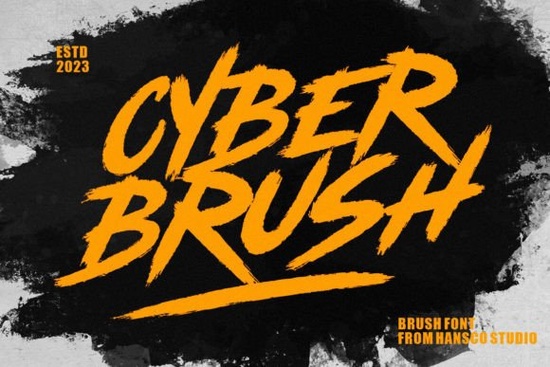
Looking for a bold, gritty typeface that feels truly hand-crafted? Cyber Brush Font is a handwritten brush typeface with a rough, dry texture that adds real character to any project. It works well for logos, posters, t-shirt designs, and printable templates. If you're a designer, crafter, or print-on-demand seller who needs a typeface with attitude and authenticity, this one deserves a closer look.
What Does Cyber Brush Font Actually Look Like?
Cyber Brush has a bold, rough style built on a detailed dry brush texture. Each letter looks like it was painted by hand with a dry brush stroke uneven edges, visible bristle marks, and a slightly worn finish. It's the kind of texture that gives designs a raw, organic feel.
The font comes in all caps, which makes it especially strong for headlines, titles, and display text. You also get:
- Punctuation marks
- Numerals
- Multilingual character support
That multilingual support is a real plus if you sell products internationally or design for clients in different markets. You won't need to swap fonts mid-project just to accommodate special characters.
Where Does a Dry Brush Font Like This Work Best?
The rough, hand-painted quality of this font makes it a strong choice for projects that need a human touch. Here are some specific ways creative professionals use it:
- Logo design Great for brands that want a rugged, handmade identity
- Product branding Works on packaging, labels, and product tags
- Printable templates Adds visual interest to planners, wall art, and greeting cards
- Posters and flyers Catches the eye with bold, textured lettering
- T-shirt and apparel design The rough brush style translates well to screen print and DTG
- Social media graphics Stands out in crowded feeds with its hand-painted look
- Text overlays Pairs nicely over photos and textured backgrounds
If you run a print-on-demand store, a font like Cyber Brush can help your designs feel less generic. Many best-selling t-shirt designs use bold brush fonts to create that effortlessly cool look buyers respond to.
How Does It Compare to Other Script and Brush Fonts?
Creative Fabrica has a large library of script and brush fonts, so how does Cyber Brush hold up? Here's how it compares to a few other popular options:
Farm Fresh Font leans more toward a clean, casual script style. It's softer and less textured than Cyber Brush, making it better for food branding or rustic designs that need a friendlier tone.
Misha Salma Font is an elegant, flowing script. Where Cyber Brush feels raw and bold, Misha Salma feels refined. If your project calls for something graceful, that's a better fit.
Milkshake Font has a playful, rounded quality. It's fun and approachable great for kids' products or lighthearted branding but it doesn't carry the same edge that a rough brush font does.
Astutely Font offers a more modern calligraphy look. It's polished and stylish but not as rugged or textured as Cyber Brush.
Southmore Font brings a classic script elegance that works well for invitations and upscale branding. It's a completely different mood from the raw energy of a dry brush typeface.
In short, Cyber Brush fills a specific niche: bold, rough, hand-painted lettering with detailed texture. If that's the vibe you're after, it's a strong pick.
Is Cyber Brush Font Right for Your Next Project?
This font works best if you need:
- A high-impact display font for headlines or logos
- A hand-painted look without actually painting anything
- Something that pairs well with clean sans-serif body text
- Full character set with numbers, punctuation, and multilingual glyphs
It's less suitable for body copy or long paragraphs the rough texture can make small text hard to read. Use it where it shines: big, bold, and in your face.
Quick Checklist Before You Buy
Before picking up Cyber Brush Font, run through this quick list:
- Test the vibe Does a rough, dry brush style match your brand or project?
- Pair it wisely Plan a clean, simple font for body text so your layout stays readable
- Preview your characters Confirm the multilingual glyphs you need are included
- Test at size View the font at your target size to make sure the texture reads well
Pro tip: Brush fonts like Cyber Brush look their best when you give them room to breathe. Avoid tight line spacing and leave generous margins around your text. The texture is part of the design let it show.